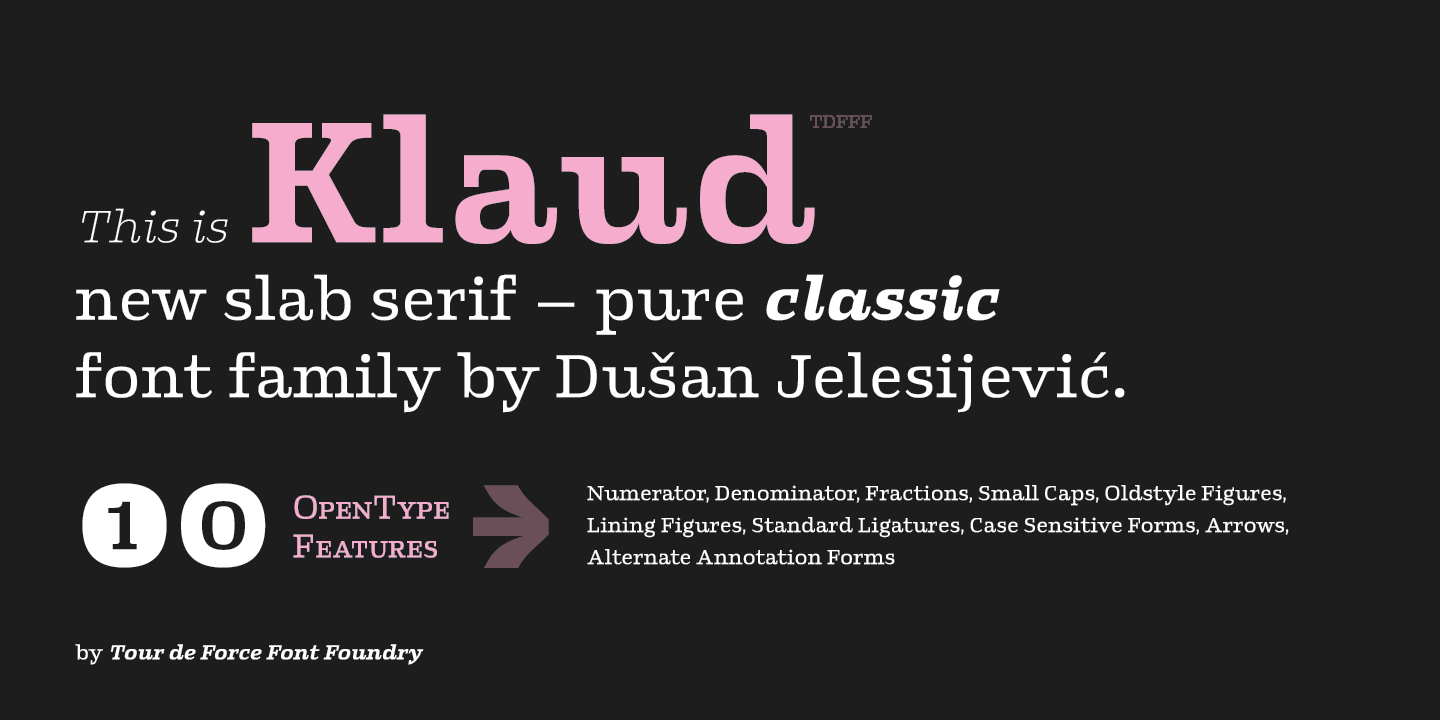
Klaud Font Free Download is a dreamy, soft-edged typeface that blends modern simplicity with a whimsical flair. Please note that you must purchase this font for commercial use. It is available as a free download for testing and personal projects only.
You can use Klaud Font in various creative spaces such as fashion branding, minimalist packaging, lifestyle blogs, wedding invitations, children’s book titles, and soft pastel-themed social media graphics. Its clean curves and airy vibe make it perfect for projects that aim to feel light, elegant, and approachable.
What makes Klaud Font so exciting is its ability to evoke calmness and creativity at the same time. With a balance of friendly curves and refined geometry, it feels both stylish and organic. It’s the kind of font that looks great on a skincare label, an eco-conscious brand, or even a dreamy tech startup landing page.
The Klaud Font family includes styles like Klaud Regular, Klaud Thin, Klaud Light Italic, and Klaud Rounded, offering plenty of variety while maintaining a cohesive aesthetic. Whether you’re designing for print or digital, it gives you the flexibility to explore subtlety or boldness as needed.